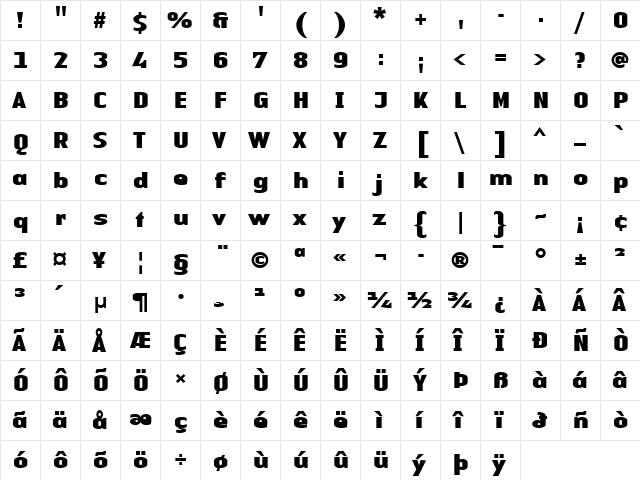
LTAuthenticSans Black Black
| Foundry | Linotype Library GmbH or ist affiliated Linotype-Hell companies |
Design Context for LTAuthenticSans Black Typeface
LTAuthenticSans Black offers clean, dependable letterforms without strong stylistic allegiance, making it a practical choice for designers who need flexibility.
Pro Tip: Use LTAuthenticSans Black in both headline and body roles to test its range before committing to a single application.